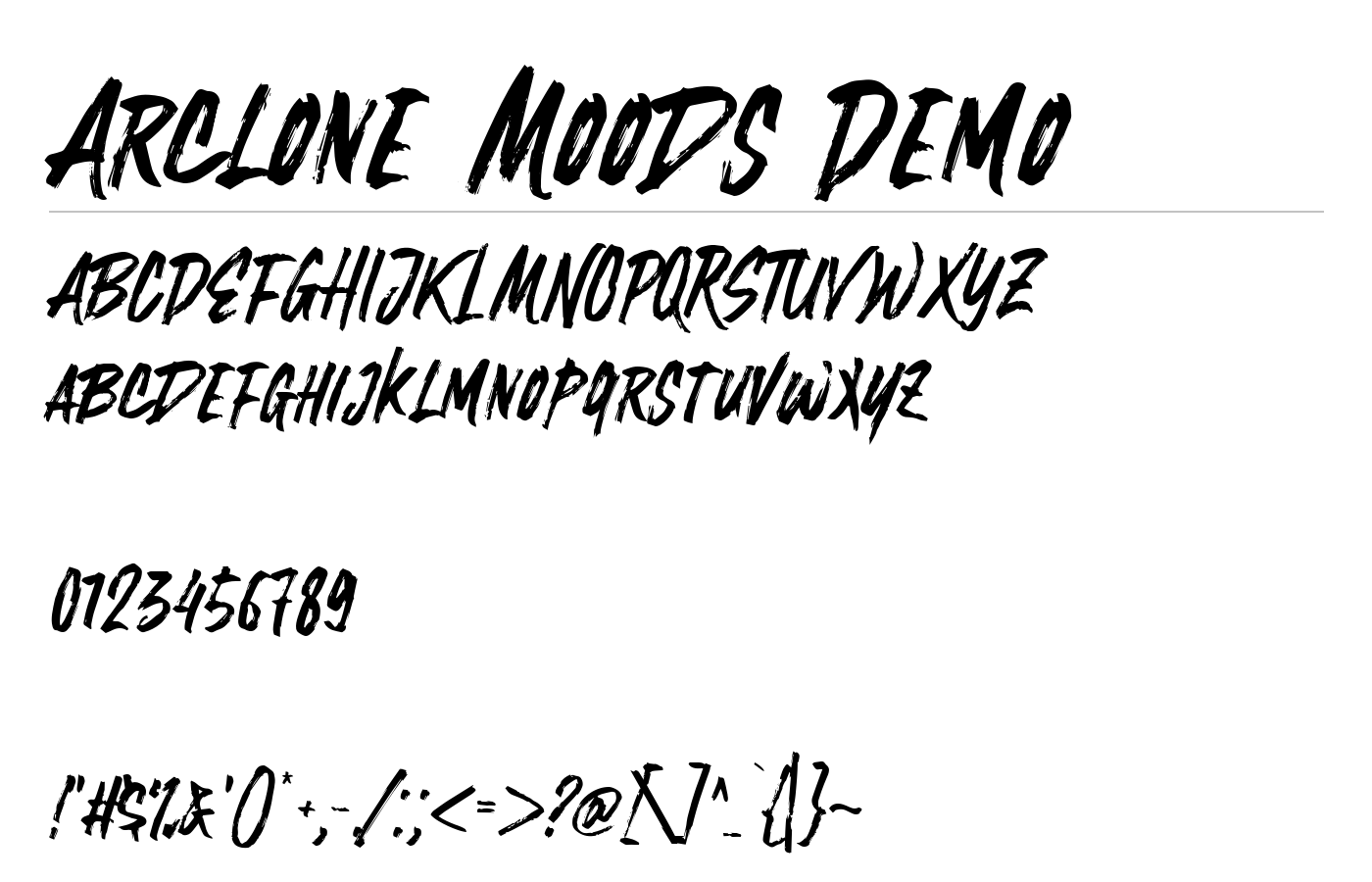
Arclone Moods Demo is an energetic, brush-style script font with a bold, textured appearance that mimics hand-painted lettering. Its irregular strokes and dynamic angles give it a raw, expressive feel, making it perfect for creative projects that want to convey emotion and spontaneity. This font works especially well for headlines, logos, posters, and branding that seek a unique, artistic, and edgy vibe.
Arclone Moods Demo Font
About Arclone Moods Demo Font
| Font family | Arclone Moods Demo Font |